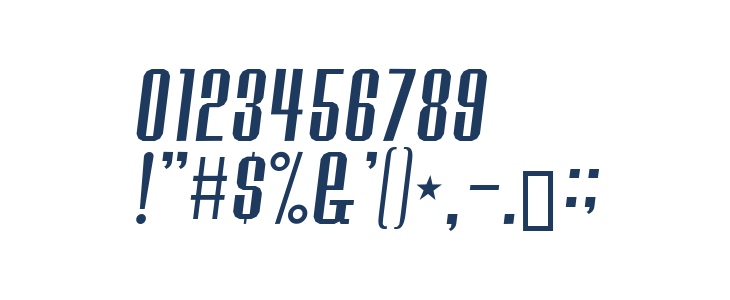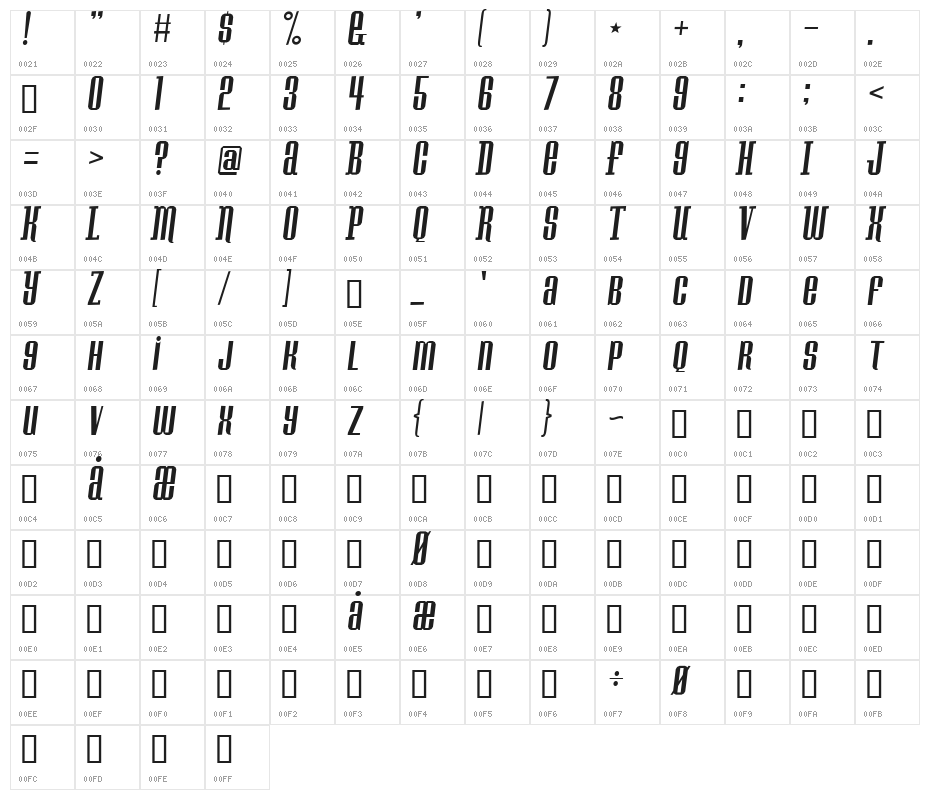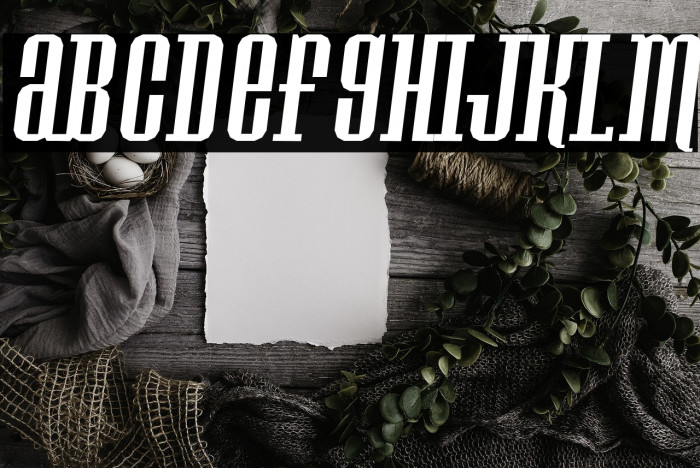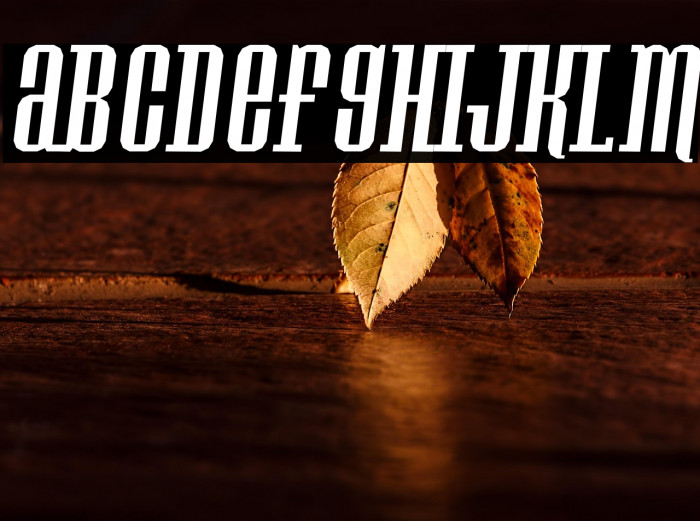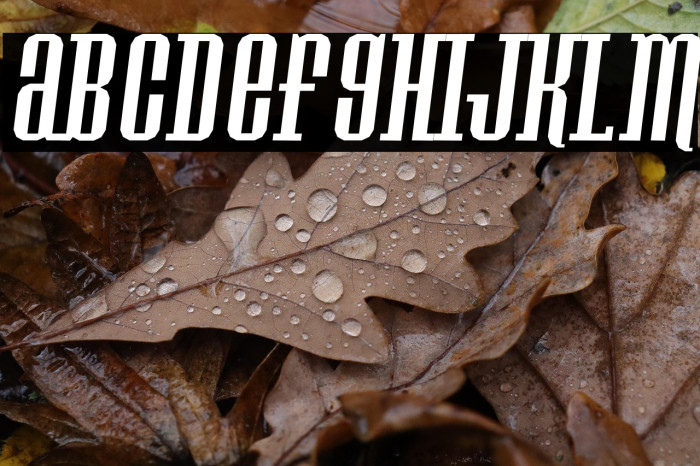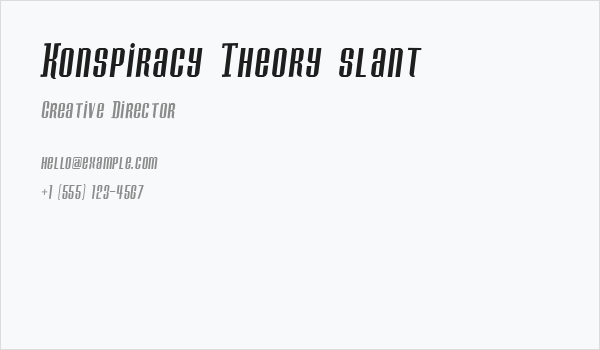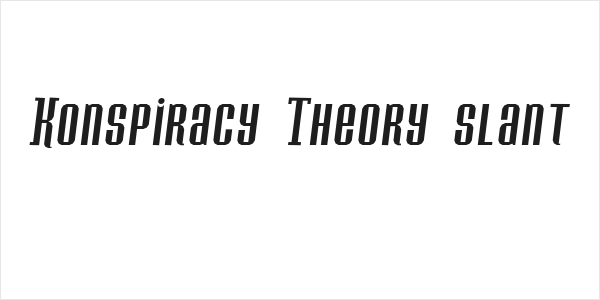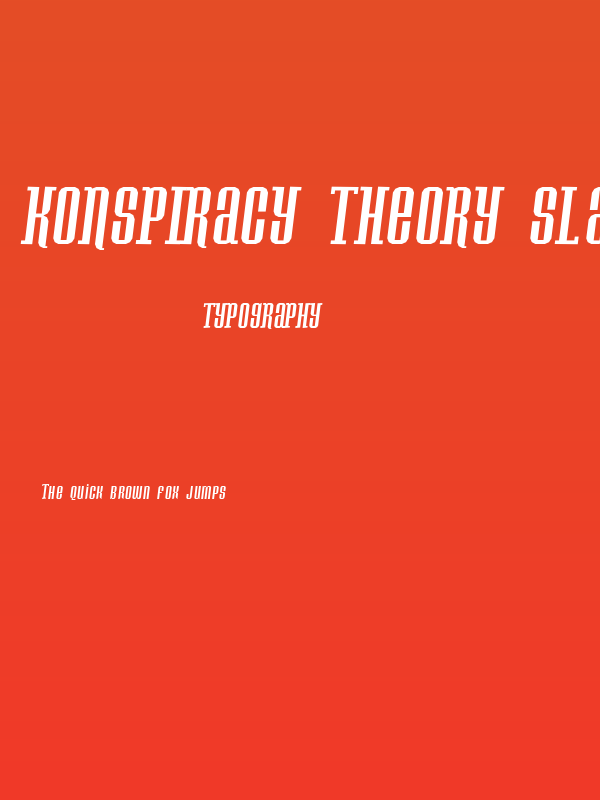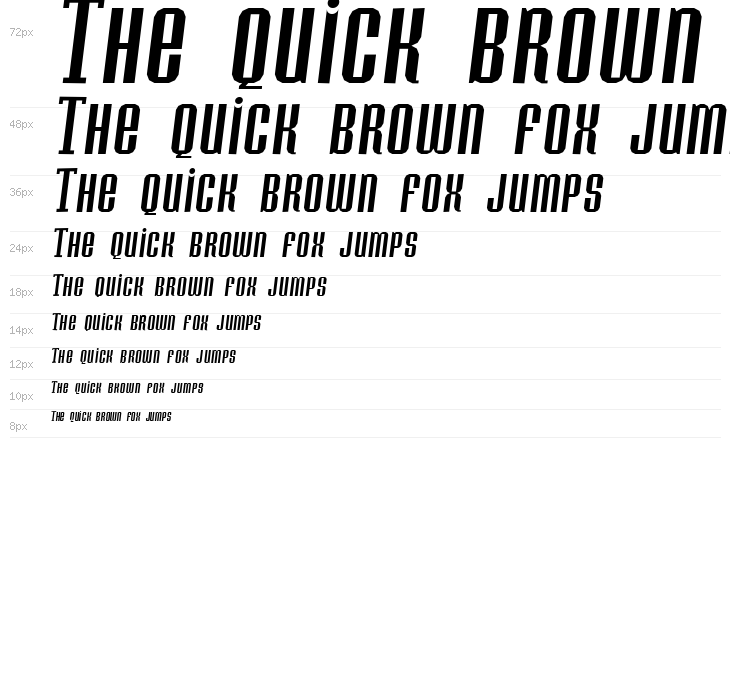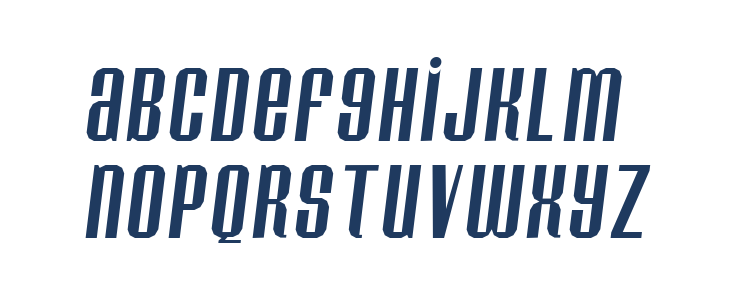
Konspiracy Theory slant Font
Konspiracy Theory slant Description
This font features a bold, slanted design with a strong geometric influence. The characters are tall and narrow, giving a condensed appearance. The strokes are consistent in width, providing a uniform look across all letters and numbers. The uppercase and lowercase letters maintain a cohesive style, with sharp angles and clean lines. The special characters are designed to match the overall aesthetic, ensuring a seamless integration into any text. This font's distinct style makes it suitable for attention-grabbing headlines or titles.
| Proposed Projects | Ideal for posters, logos, branding, and editorial design where a strong, modern impact is desired. |